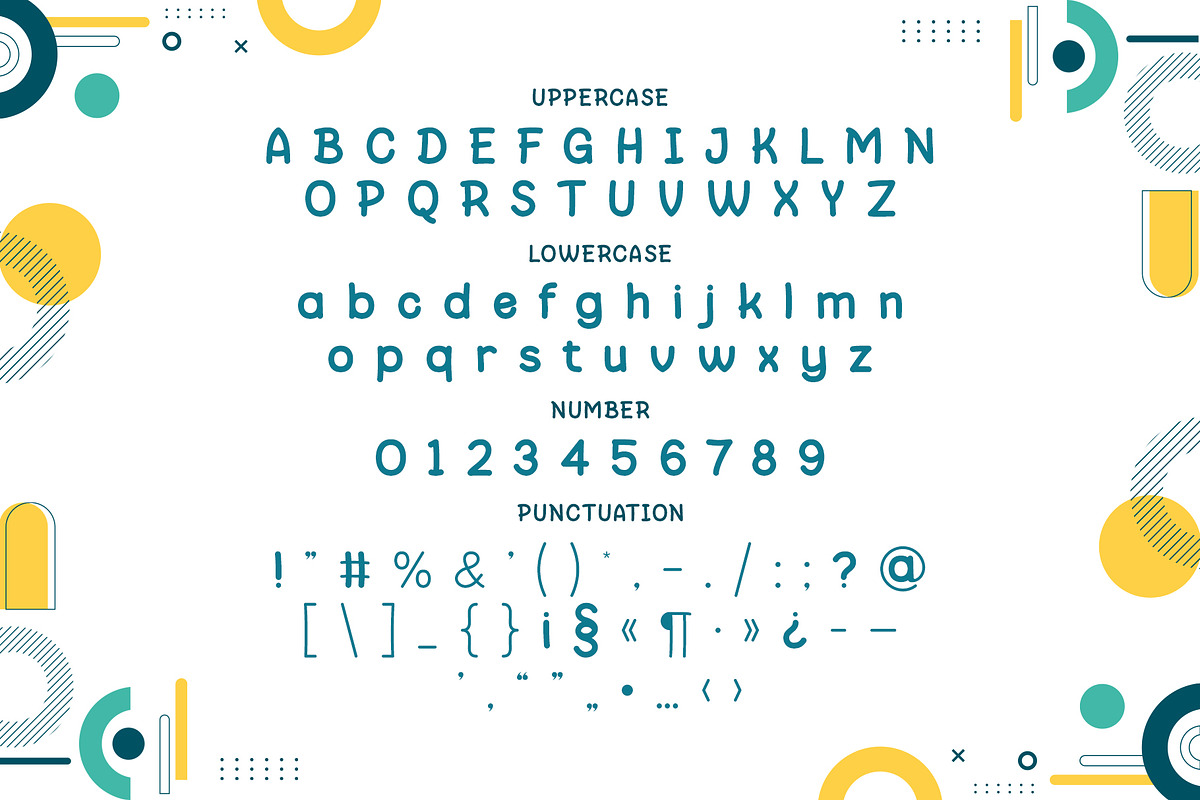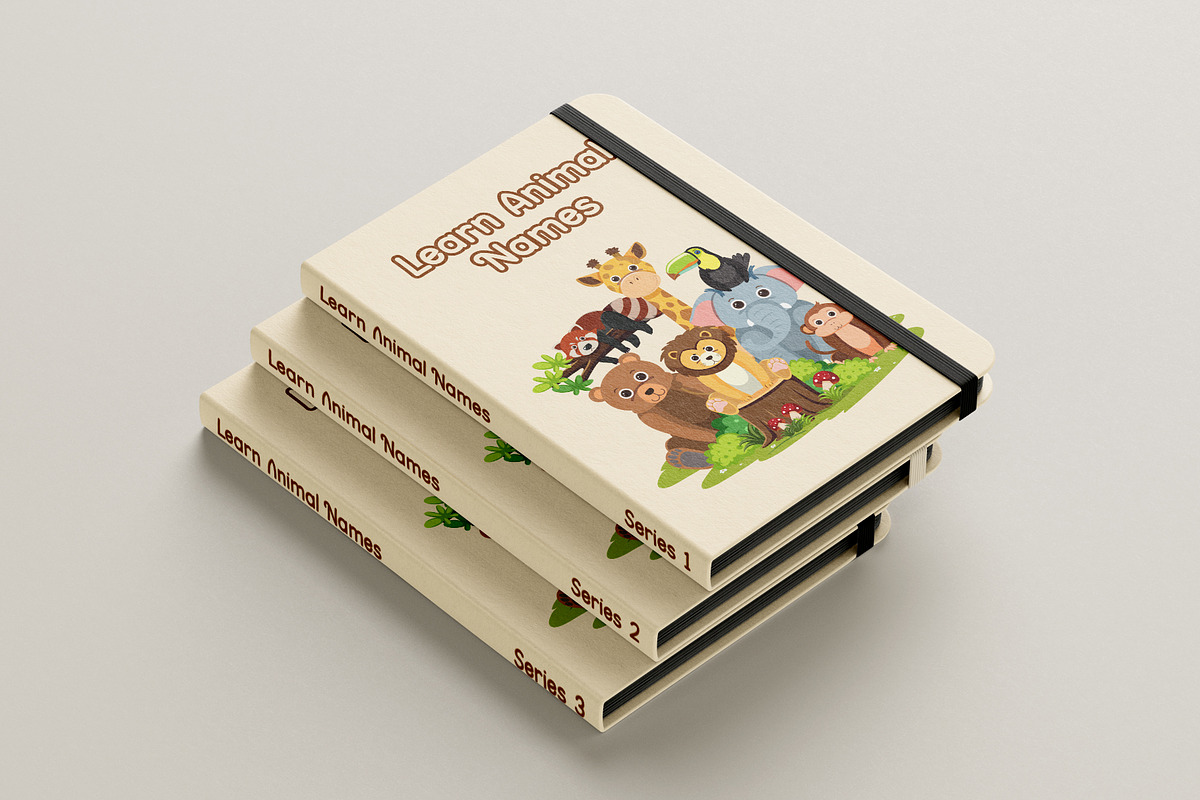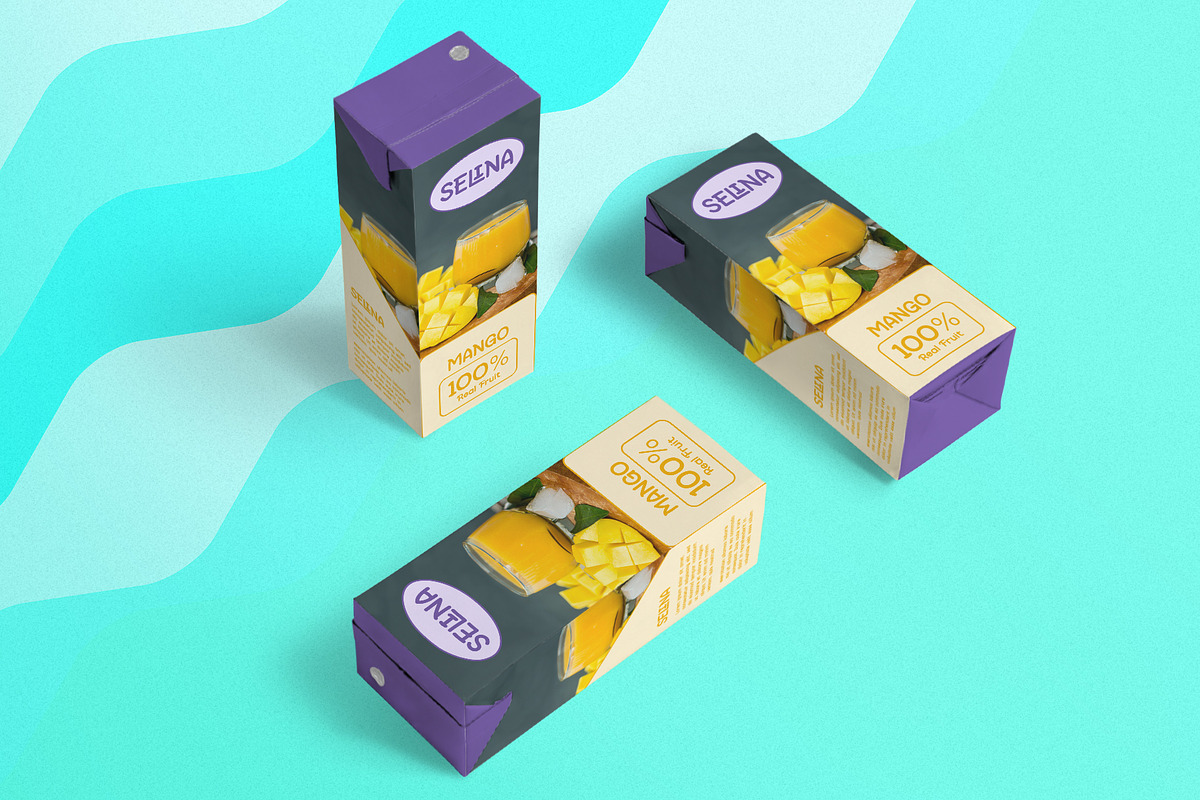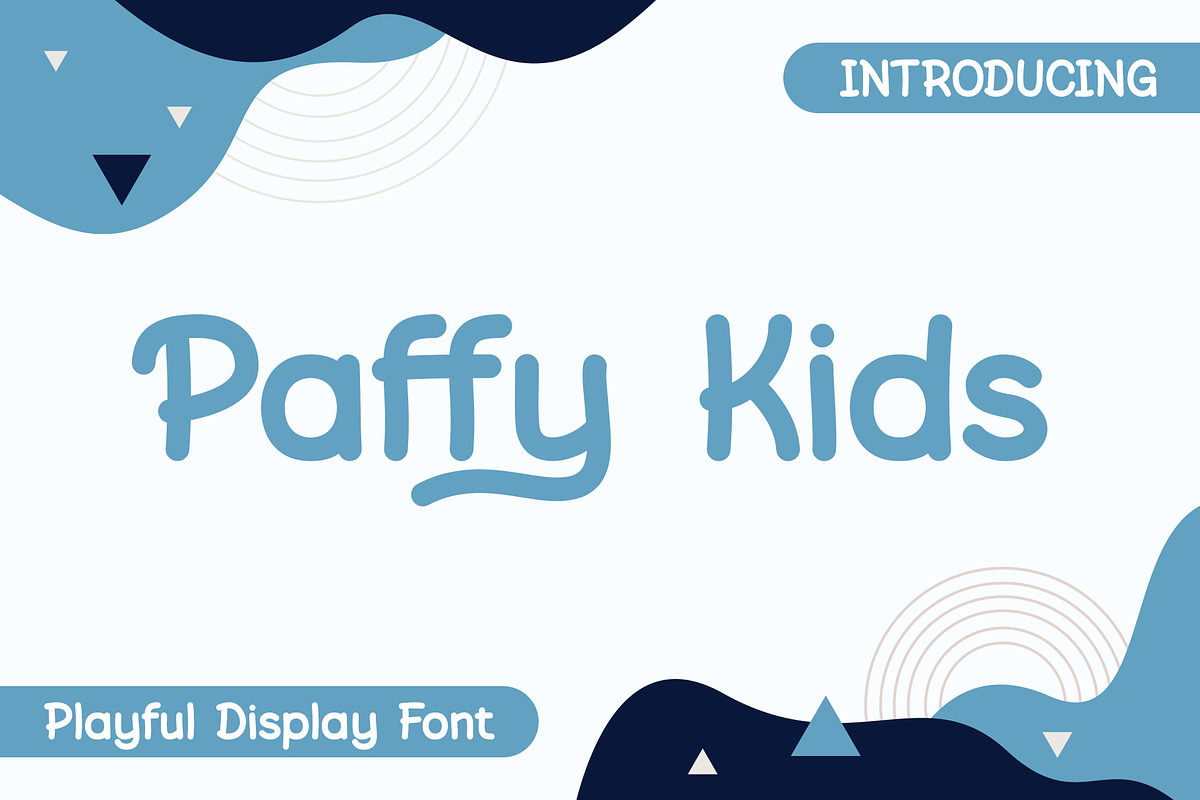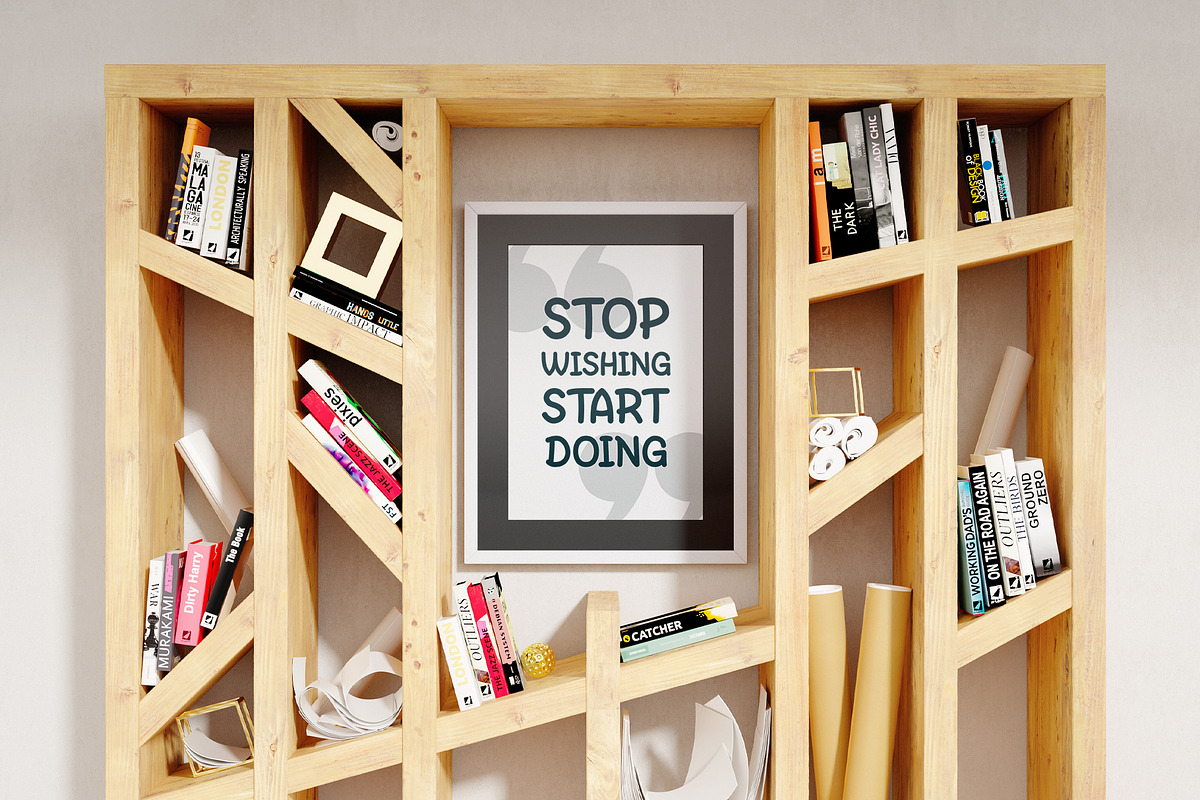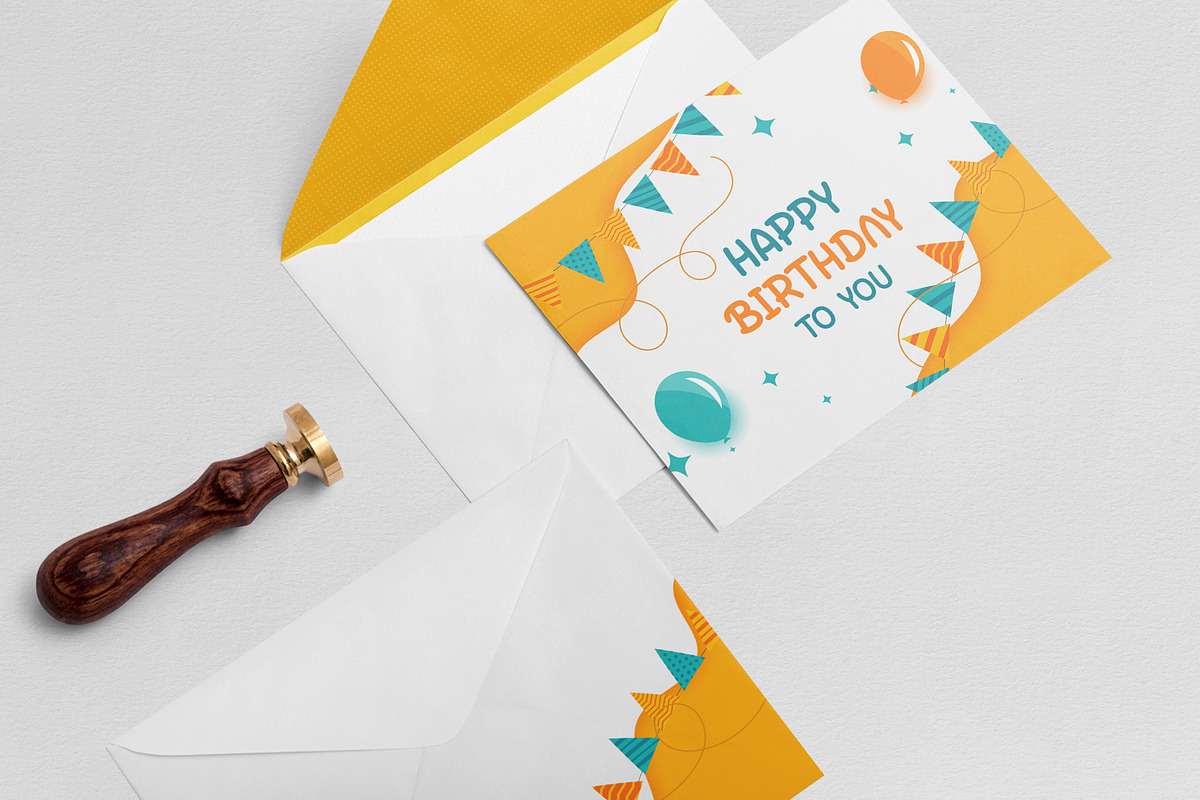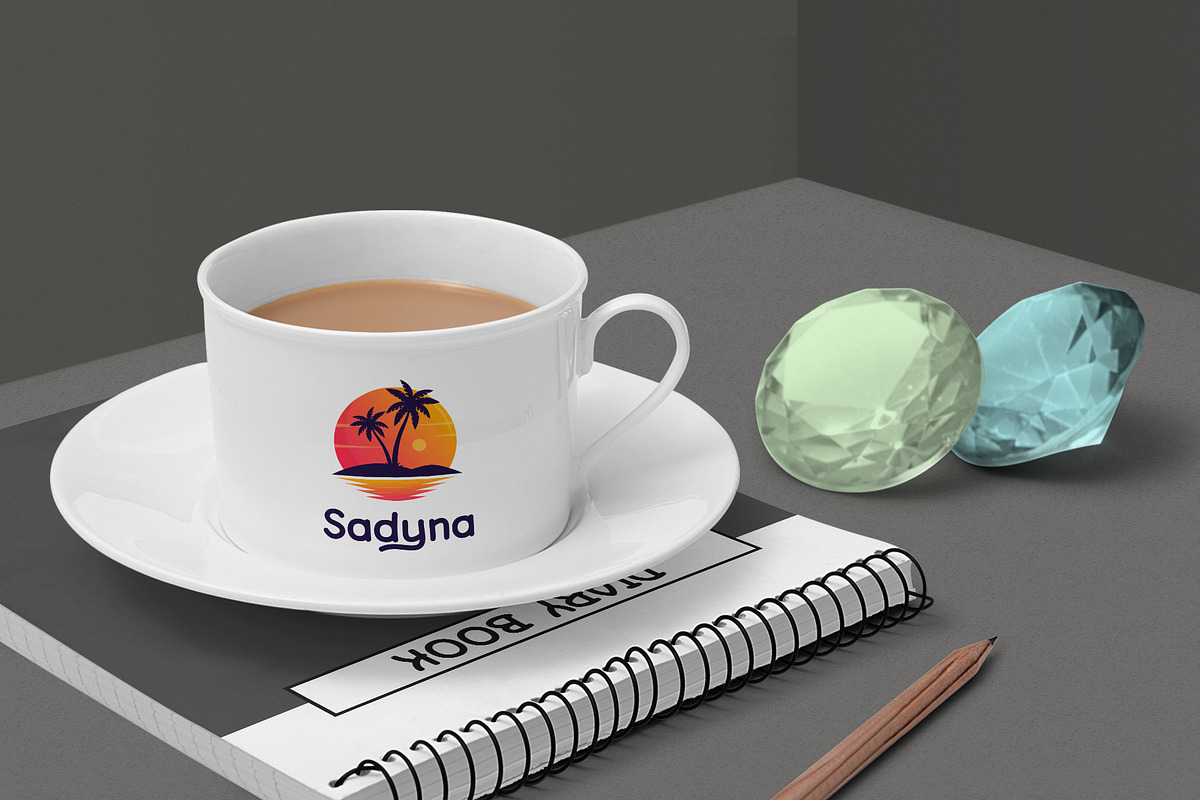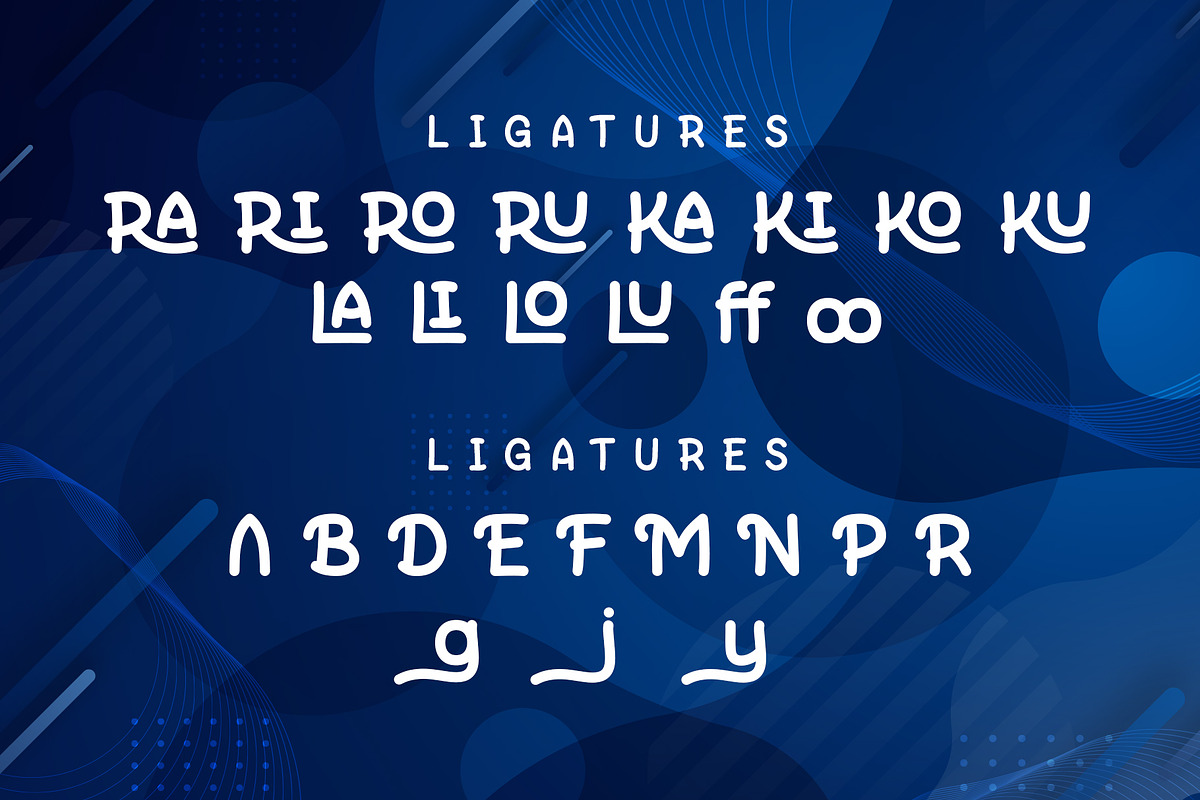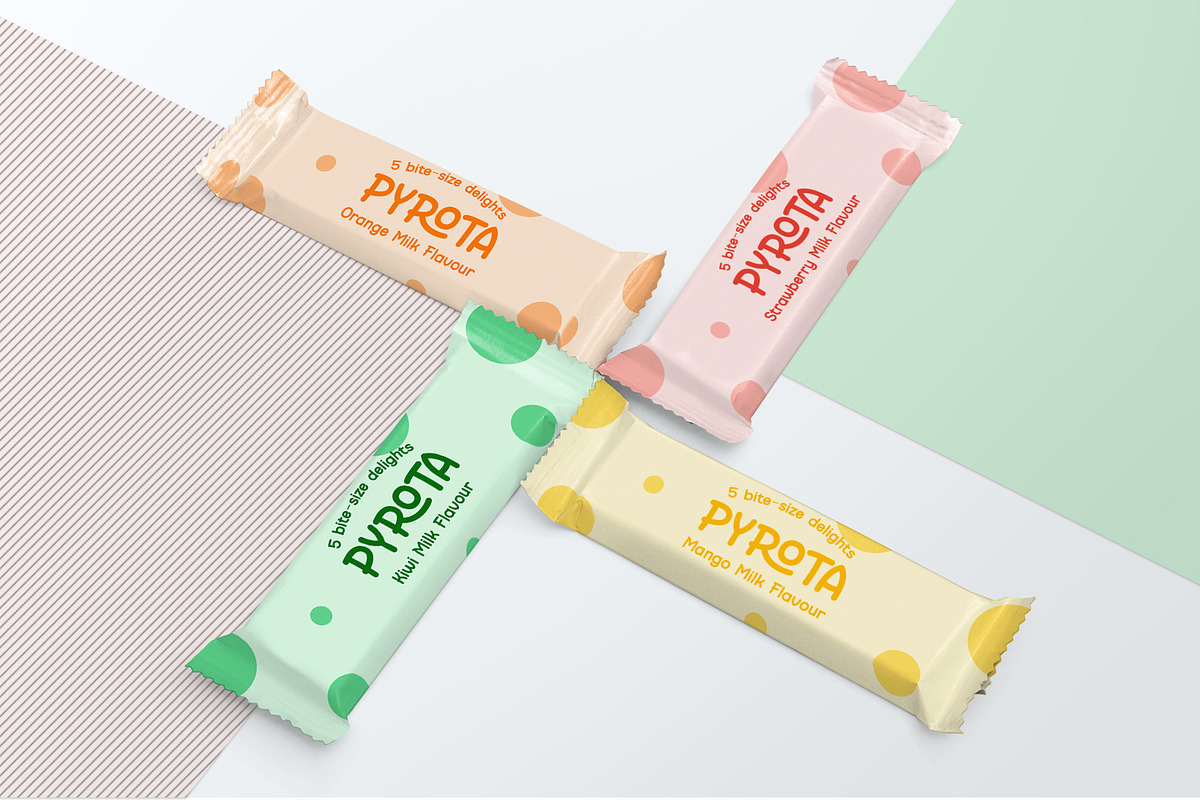
Paffy Kids - Playful Display Font
Paffy Kids is a fun display font. Playful and fresh, this font will be a hit for each of your children or school projects. Its stylish alternations and ligatures make this font the perfect partner for any project.